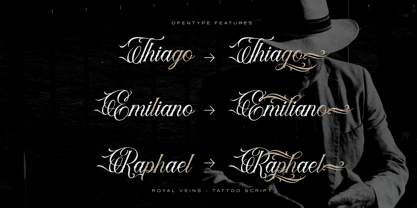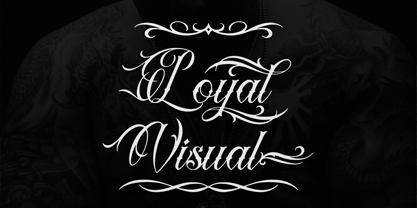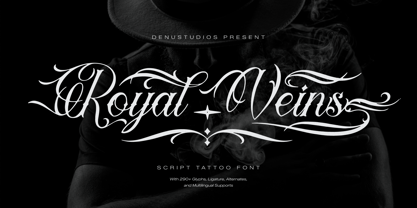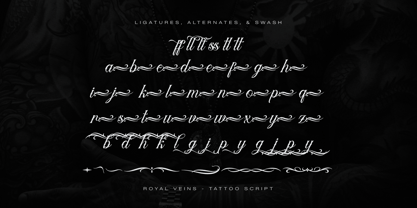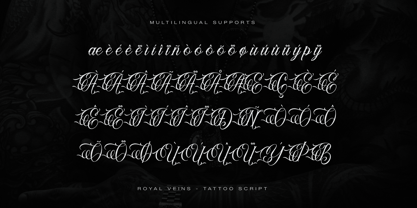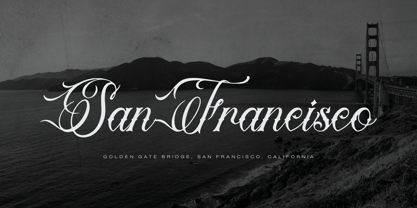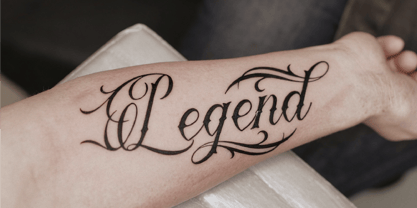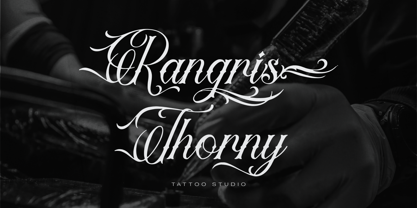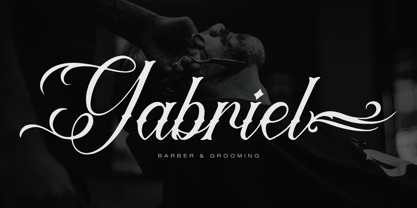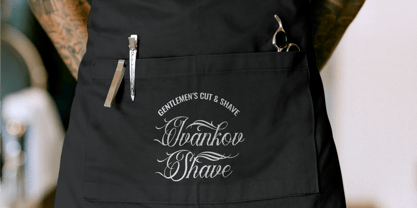
Royal Veins
A família de fontes Royal Veins foi desenhada por Dede Nugraha e publicada pela Denustudio. Royal Veins contém 2 estilos e opções de pacote familiar. Saiba mais sobre esta família
Royal Veins | Tattoo Script, from Denustudios, suitable for any projects such as: logos, branding projects, homeware designs, product packaging, mugs, quotes, posters, shopping bags, t-shirts, book covers, name card, invitation cards, greeting cards, label, photography, watermark, special events, and all your other lovely projects that need a Tattoo taste.